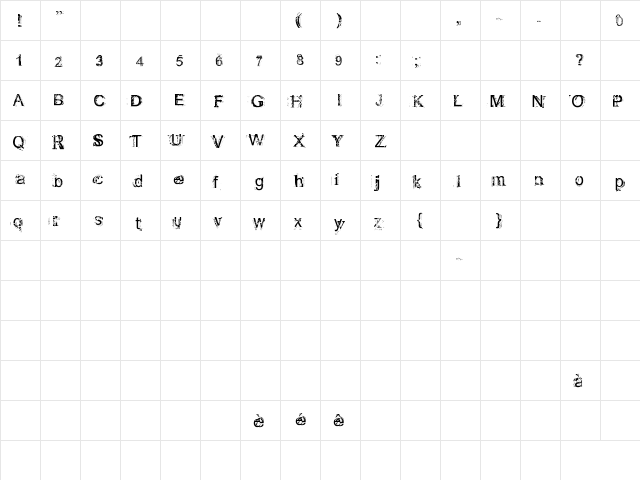
Rough linen Regular
Rough linen trades polish for personality, using distressed and eroded forms to bring grit and attitude to creative work.
Suited to punk-influenced zines, underground music branding, streetwear, and raw, anti-corporate design.
Pro Tip: Pair Rough linen with intentionally raw or lo-fi design elements. Fighting against it with overly polished surroundings will undermine its personality.